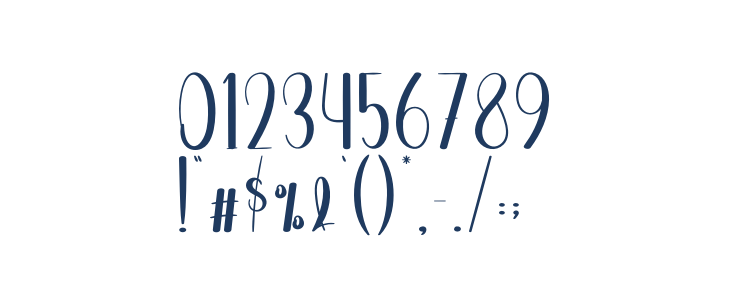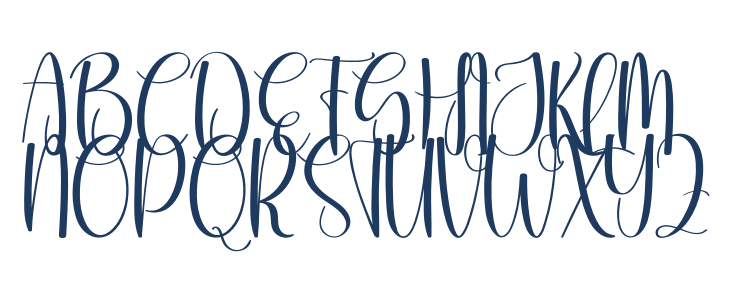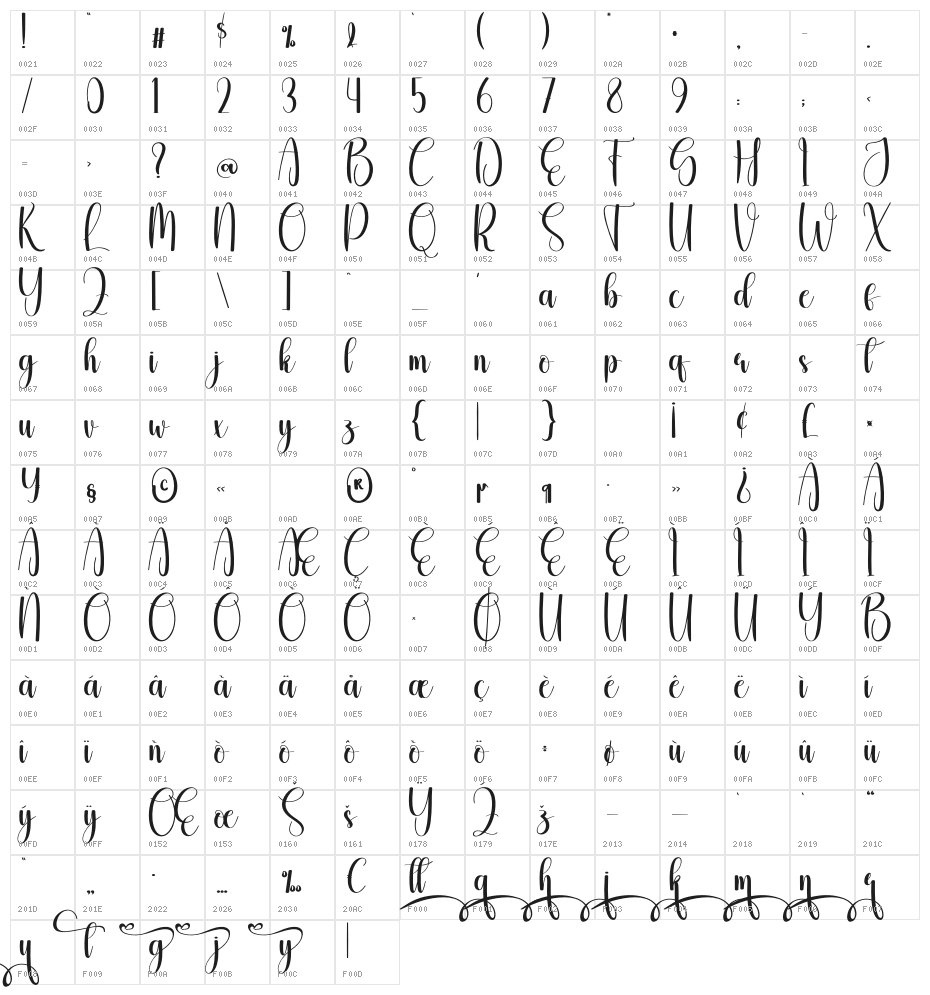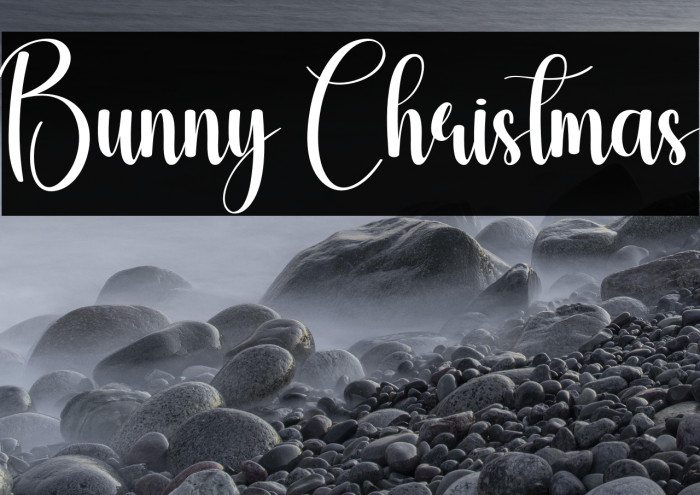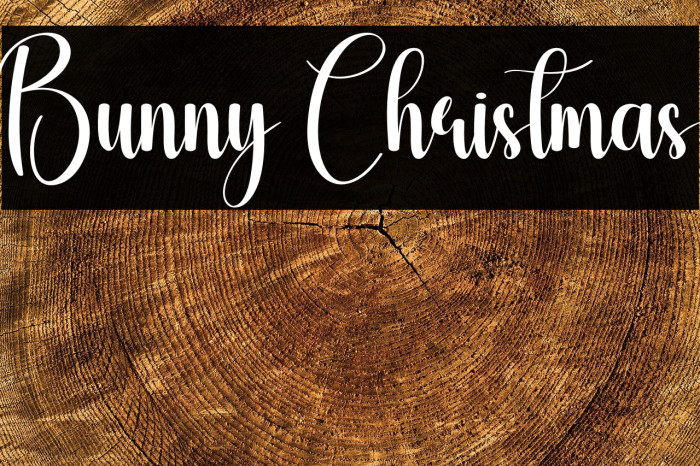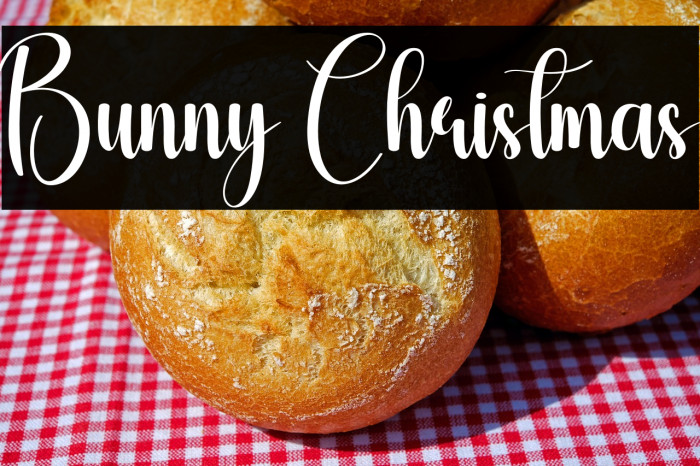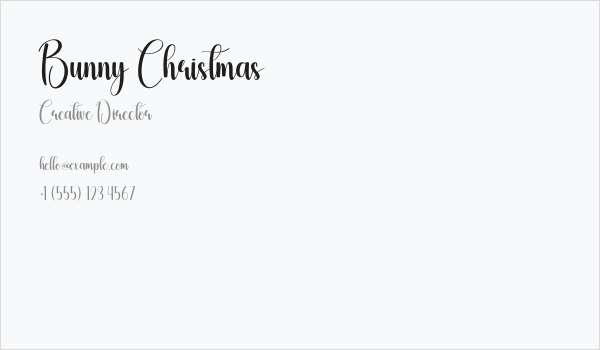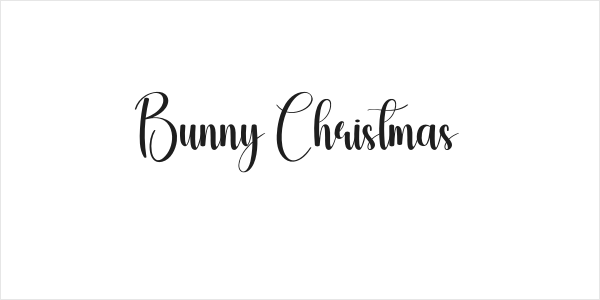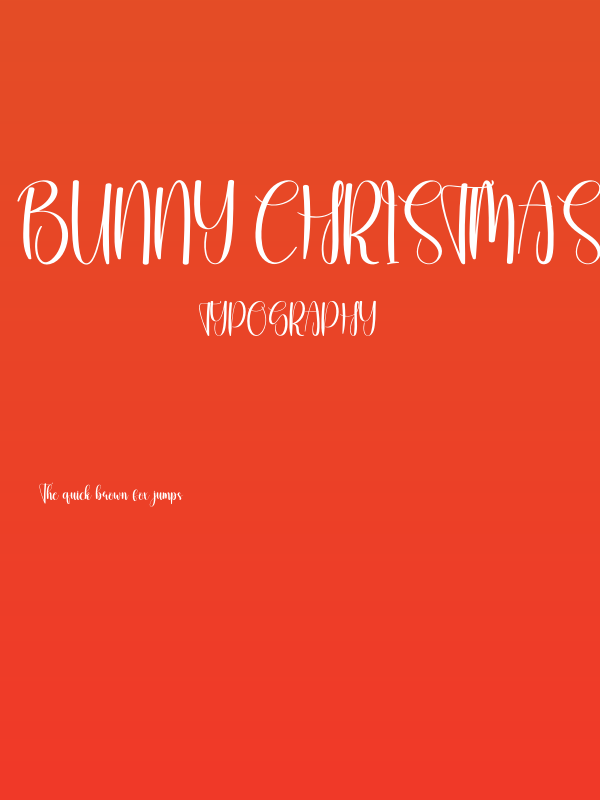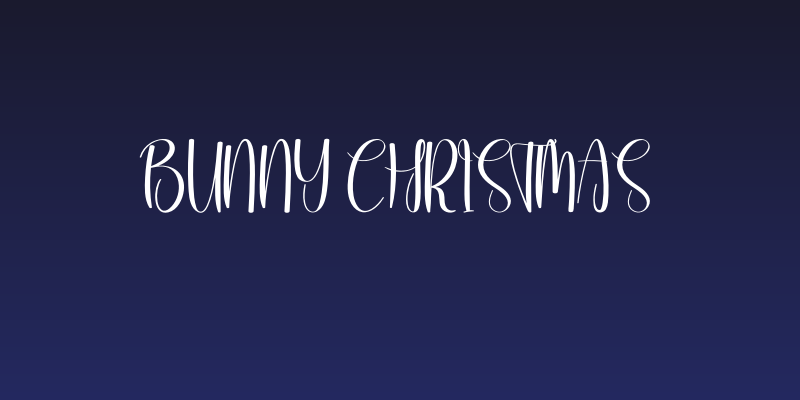
Bunny Christmas Font
Bunny Christmas Description
A whimsical, handwritten script font with tall, narrow letterforms and playful swashes. The uppercase letters are highly decorative with exaggerated loops, while the lowercase letters are more compact and rounded. The numbers and symbols maintain the same playful, hand-drawn style.
| Overall Style | Decorative, Whimsical, Handwritten |
| Use Case | Logos, Headlines, Invitations, Greeting cards |
| Proposed Projects | Greeting cards, holiday invitations, playful branding, posters, social media graphics. |